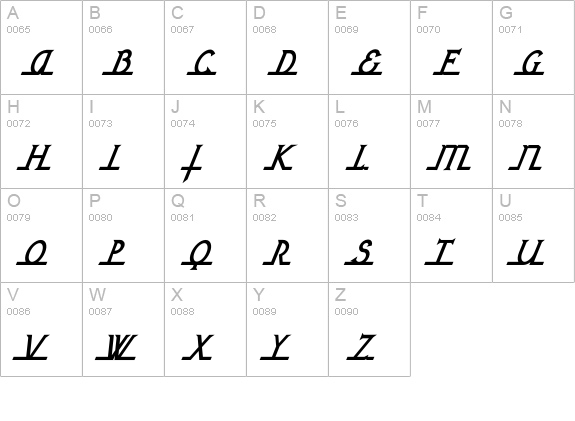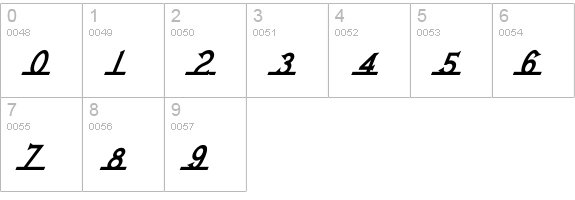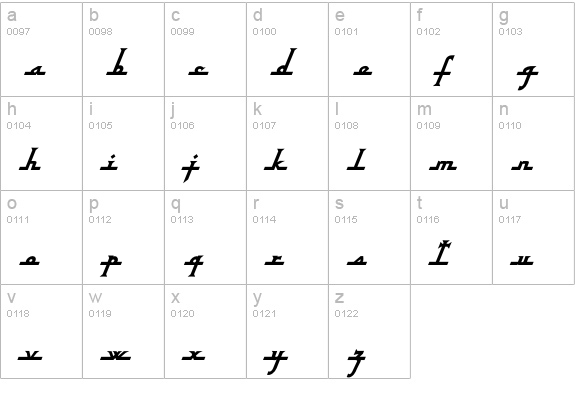
NixonScript-BoldItalic Font Details
NixonScript-BoldItalic is a striking and eye-catching font that exudes sophistication and elegance. Its bold and italic design adds a touch of drama to any project, making it perfect for creating impactful headlines or stylish designs. The intricate details and unique letterforms of NixonScript-BoldItalic make it stand out from the crowd and leave a lasting impression on viewers. The best part? NixonScript-BoldItalic is available for free download at FontsMarket.com, allowing you to elevate your design projects without breaking the bank. Whether you're working on a branding project, a website design, or a print advertisement, NixonScript-BoldItalic is sure to add a touch of class and flair to your work. Download it today and unleash your creativity with this stunning and versatile font.